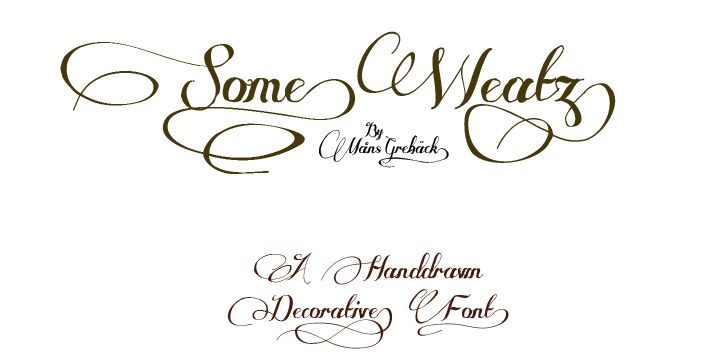
Some Weatz Symbols by Måns Grebäck is a free calligraphic script with extravagant loops and dramatic shifts from hairline strokes to broad black curves. The flourishes extend well beyond each letter.
Ornamental line art and botanical scrollwork can echo these sweeping forms in wedding invitations, fashion editorials, and theatrical posters. The font is especially suited to a luxury fragrance or couture identity, where the lettering can become part of the brand's decorative emblem rather than simply naming the product.